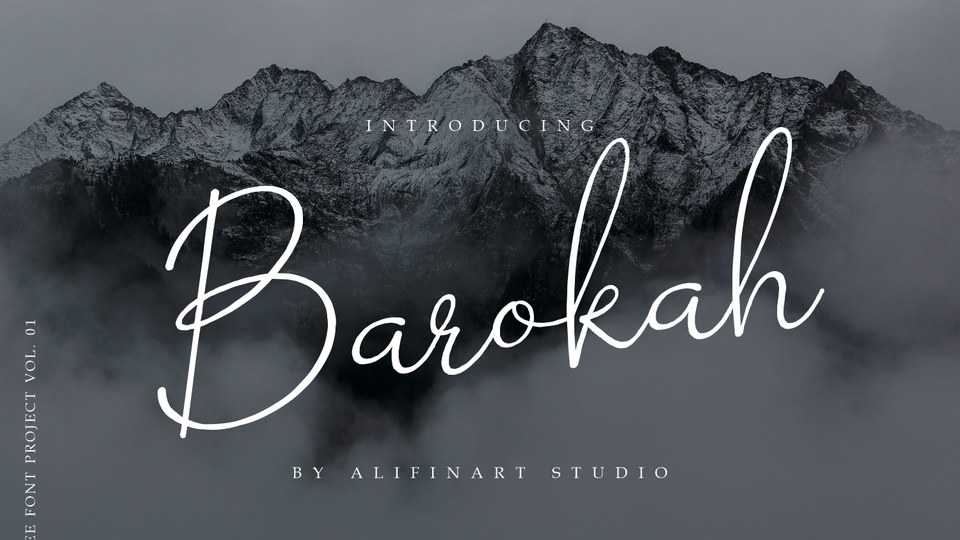
Download Barokah Signature font, a unique and elegant typeface inspired by a casual style of writing using an ink pen. The design is a blend of the soft and bold designs that are the hallmark of a signature font.
Designer: Alifinart Studio